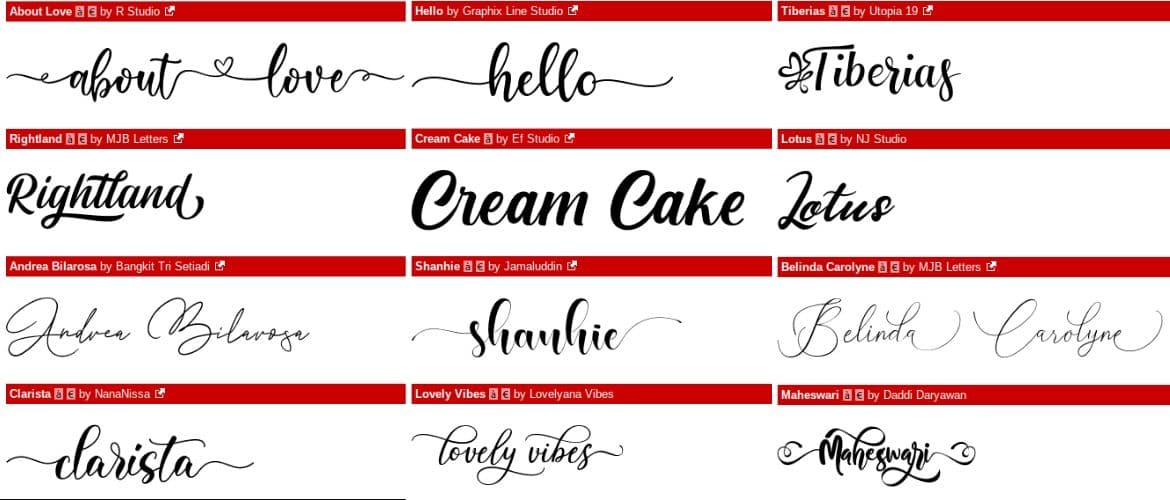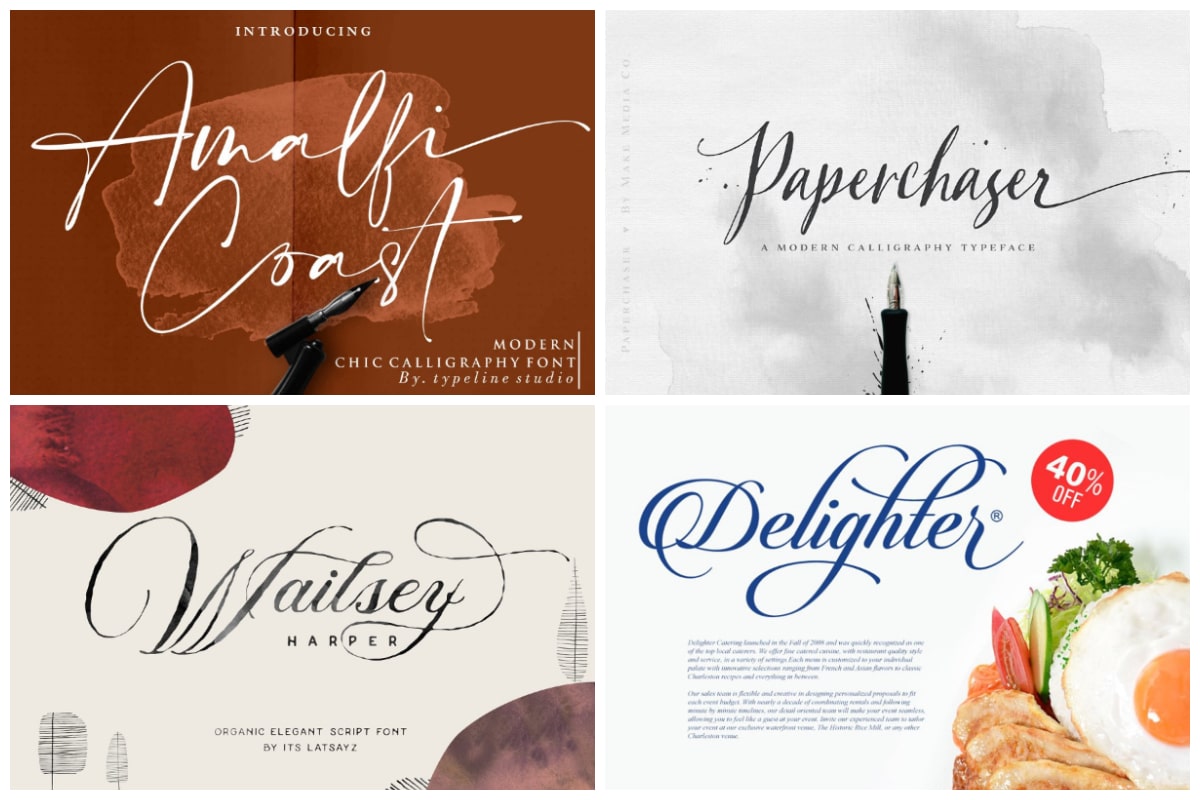
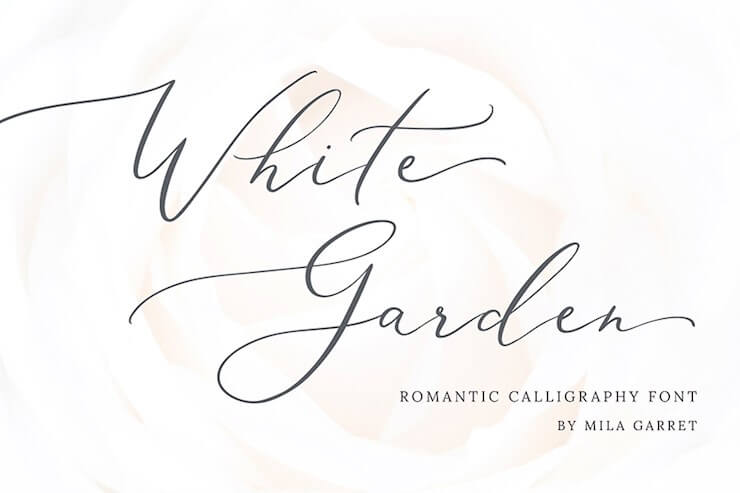
72 Best Calligraphy Fonts Around The Web 2019 Hipsthetic
Modern calligraphy fonts capital letters. Igneo Caps Only A Z Display Font Stunning Display Fonts. The height of calligraphy was reached in the middle age where monks developed the narrow writing style called gothic allowing more words to fit on a single line as paper was expensive at the time. Beautiful calligraphy writing in alphabet F letters.
Calligraphy is an ancient writing technique using flat edged pens to create artistic lettering using thick and thin lines depending on the direction of the stroke. Hinkler calligraphy practice kit pen assembly. How To Learn Lettering 50 Free Tutorials And Pro Tips Creative.
With 83 pages in total the copybook contains 3 pages of capital letters and lower case letters with arrows beside each character and 80 pages of lined paper with which to practice. Download Calligraphy Fonts Capital Letters This beautiful handwritten script font features both uppercase and lowercase letters with numbers and punctuations. Click here or on the image below to download your free capital letters practice sheet.
How to make calligraphy capital letters. Modern calligraphy typefaces differ from traditional calligraphy in that they do not adhere to specific lettering rules. Contains a complete set of lower and uppercase letters punctuation numbers ligatures and diacritics for multilingual support.
It usually involves a nibbed pen or brush. 5 out of 5 stars. This notebook is designed for practicing the art of calligraphy and hand lettering.
Handwriting fonts copy and paste. Well go through stroke by stroke to show you exactly how to write each letter. With that in mind its for those wondering how difficult it is to learn to write a cursive capital j it tends to land somewhere in the middle on the difficulty scale.
Wild Peonies Modern Calligraphy Stunning Script Fonts. Gothic script capital letters. I have a video showing how I create each of these versions of capital letters as well.
Big Brush Marker Flourish Capital and Lowercase Letters Alphabet Modern Calligraphy Lettering Printable Practice Worksheets. Brush Calligraphy Basics- Capital Letters. Its the perfect font for designing everything from website headers to greeting cards T-Shirt designs and more.
This guide offers a fun and relaxing way to learn a modern calligraphy alphabet specifically cursive capital letters. Royalty-free stock vector ID. We have 2033 free Modern Calligraphy Fonts to offer for direct downloading 1001 Fonts is your favorite site for free fonts since 2001.
The best free calligraphy fonts. Free printable old english calligraphy alphabet. The main sub-styles are traditional calligraphy and modern.
Calligraphy is an artistic writing style where the pressure is varied to create thick and thin lines all in a single stroke. Handwritten calligraphy flourish font. This style can end up looking very similar to hand-lettered fonts but the difference is that calligraphy is written and not drawn.
How to write capital i in calligraphy. Brush F Celtic F Chinese F Cursive F Copperplate F Gothic F Medievil F Modern F Renaissance F Roman F Lowercase F Merry Runic F Old English F Stencil F. Arizonia is a modern casual font with thin upstrokes and thick downstrokes which makes it more suitable for titles and branding.
Hand lettering capital letters doesnt have to be scary. LilBaby Script Font is a romantic modern calligraphy typeface which supports Latin and Greek characters. Gothic love letters font download.
List of styles and samples in alphabetical order. Bon Vivant Collection Stunning Display Fonts Creative Market. 22032020 modern calligraphy j how to write cursive capital letters uppercase letters capital letters on behance majuscule t variants by polish calligraphy alphabets j to print.
Glaston Romantic Calligraphy Stunning Script Fonts Creative Market. 2019 - สำรวจบอรด modern calligraphy alphabet ของ Aemika Party ซงมผตดตาม 272 คนบน Pinterest ดไอเดยเพมเตมเกยวกบ ตวเขยน อกษร ตวอกษร. The writing is readable but is usually extravagant and embellished with flourishes.
So be sure to watch that for more tips and information on capital letters. LilBaby Script Font a romantic modern calligraphy typeface nantiaco LilBaby Script Font specimen 018.